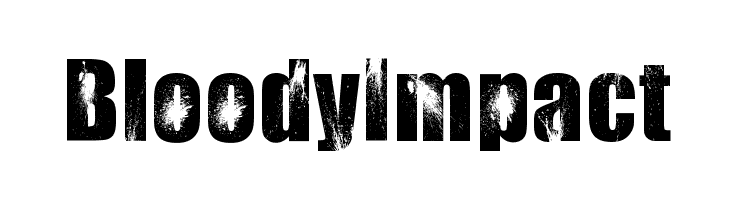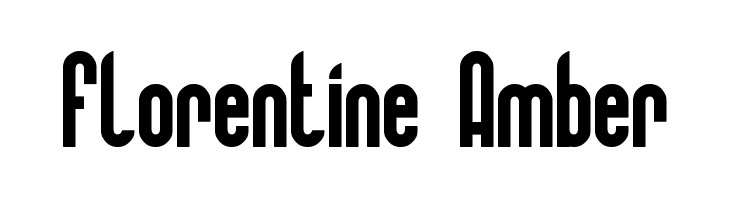
A bold, condensed font with rounded edges and uniform strokes.
A modern, textured font with horizontal stripes across each character.
A bold, grungy font with a distressed, brush-painted look.
A bold, textured brush-style font with an artistic, hand-drawn appearance.
A bold, distressed font with a gritty, textured appearance.
A bold, distressed font with a grungy, textured appearance.
A festive, decorative font with Christmas-themed embellishments.